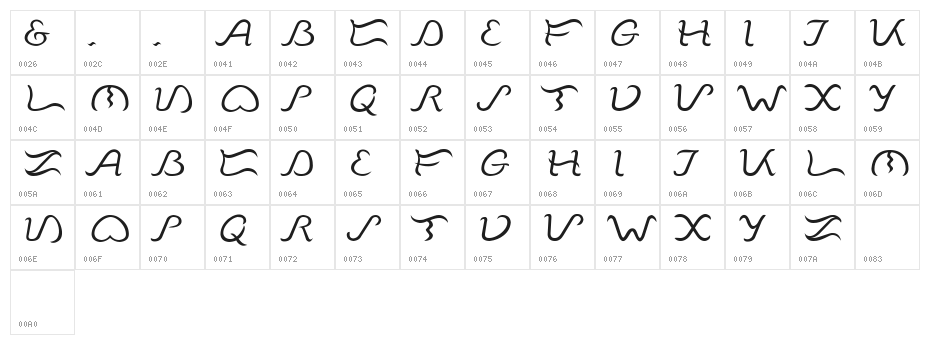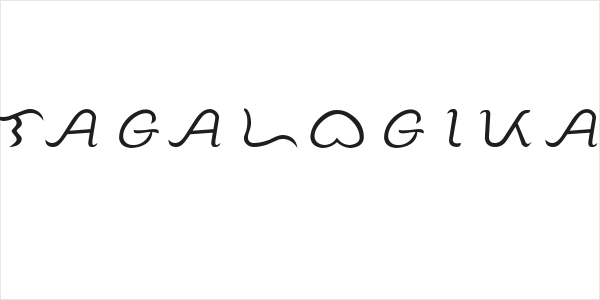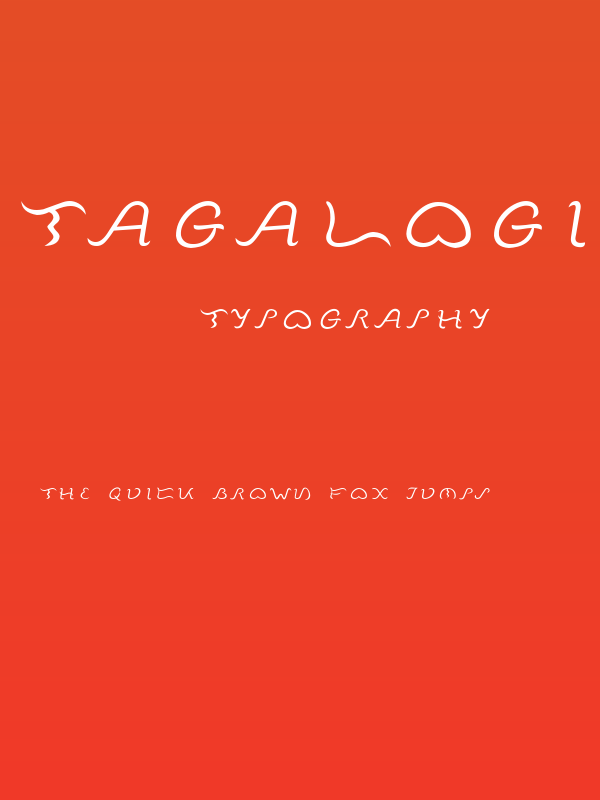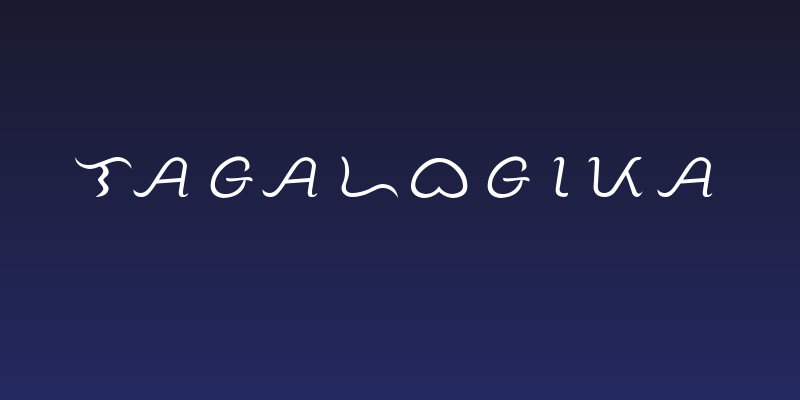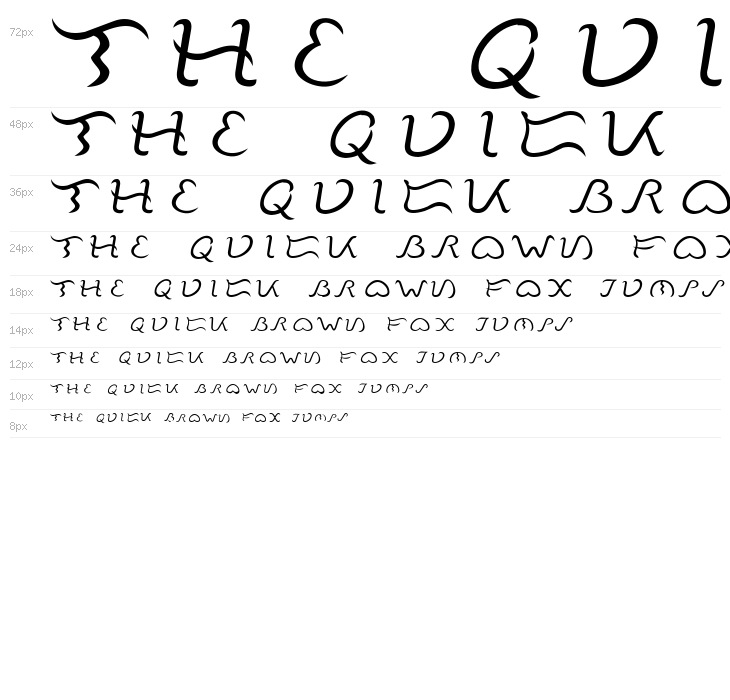
Tagalogika Font
Tagalogika Description
This font exhibits a unique and artistic style, characterized by its flowing, cursive-like strokes that mimic traditional calligraphy. The letters are elegantly curved, with a consistent stroke width that gives the font a harmonious appearance. The uppercase and lowercase letters maintain a cohesive design, with subtle variations that add to its charm. The special characters, such as the ampersand, are intricately designed, enhancing the font's decorative appeal. This font is ideal for projects that require a touch of elegance and sophistication, such as wedding invitations, greeting cards, or branding materials.
| Use Case | Headlines, Logos, Invitations |
| Proposed Projects | Wedding invitations, greeting cards, branding materials, decorative headings. |